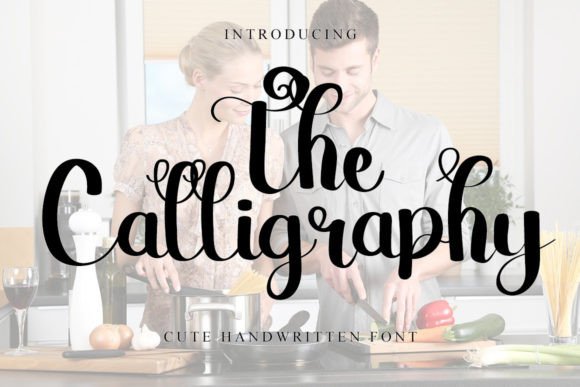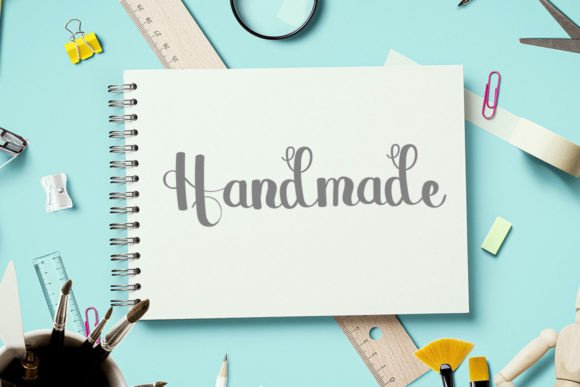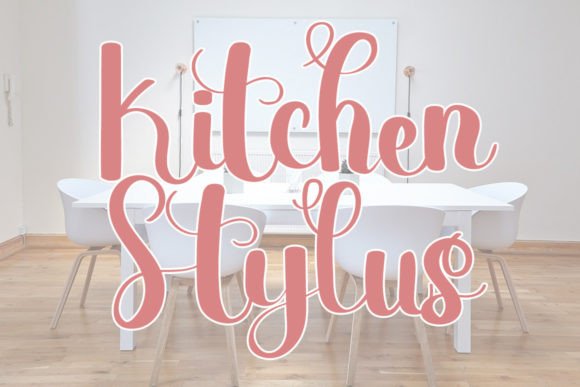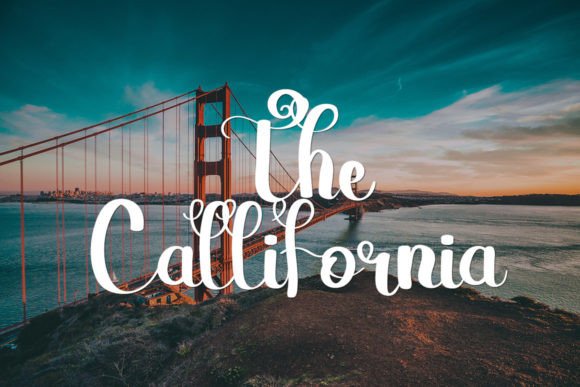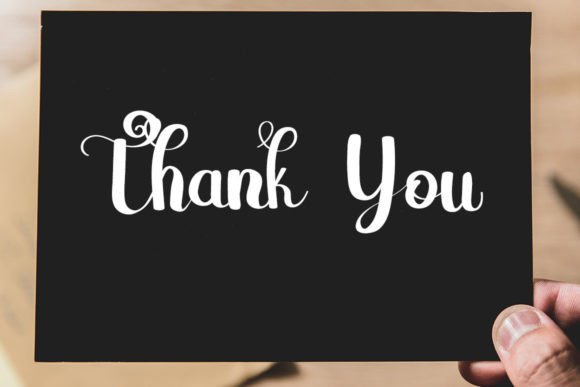
The Calligraphy Font
What Is The Calligraphy Font?
The Calligraphy Font is a stunning handwritten script designed to bring elegance, warmth, and timeless beauty to your creative projects. Each letter features graceful strokes and smooth curves that create an enchanting, sophisticated look. Whether you want to design something classic or modern, The Calligraphy Font helps your ideas stand out with style and charm.
Its handcrafted character ensures your work feels personal and authentic, perfect for projects that need a touch of heartfelt artistry.
The Calligraphy Font is incredibly versatile and fits beautifully into many applications. For example, it’s perfect for wedding invitations, save-the-date cards, and other event stationery. The refined script style sets the tone for an unforgettable celebration and adds an elegant touch.
Greeting cards and personal notes also benefit from this font’s sophisticated yet friendly character. Its flowing lines make messages feel warm, sincere, and special.
If you design logos or branding materials, The Calligraphy Font is a wonderful choice for boutique brands, creative studios, and luxury businesses. It helps your visual identity look professional and unique.
The font also works well for social media graphics and blog headers. Whether you’re sharing quotes, promoting offers, or introducing your brand, The Calligraphy Font adds polish and beauty that stands out.
In addition, it’s ideal for product packaging, labels, and promotional materials. From candles and skincare products to gourmet treats, this script enhances the look of your packaging with a refined finish.
Why Should You Choose The Calligraphy Font?
One of the biggest reasons to choose The Calligraphy Font is its readability. Even though it has a decorative script style, each letter remains clear and legible at any size. Whether you’re working on small labels or large headlines, your text will always look crisp and professional.
The font also pairs beautifully with clean serif or sans-serif typefaces, giving you the flexibility to create balanced, stylish layouts that feel modern and cohesive.
Designers love that each glyph is crafted to perfection, saving time while delivering exceptional results.
The Calligraphy Font brings elegance, warmth, and personality to any project. Its smooth curves and refined details create an emotional connection with your audience, making your designs feel genuine and memorable.
Even minimalist layouts feel elevated and stylish when you use this font. It’s an easy way to add sophistication and character to any composition.
Choosing a premium handwritten script shows you value thoughtful, high-quality design. Clients and customers will recognize and appreciate this effort, helping you build trust and credibility.
The Calligraphy Font is more than just a beautiful script—it’s a versatile tool that helps you share ideas with timeless elegance. From weddings and branding to social media and packaging, this font adapts to countless uses and always leaves a lasting impression.